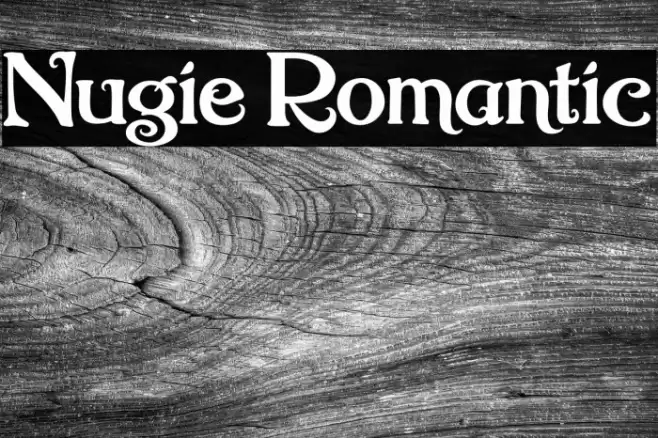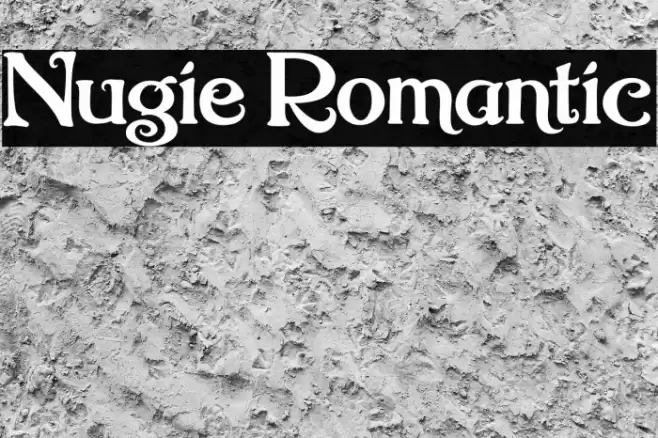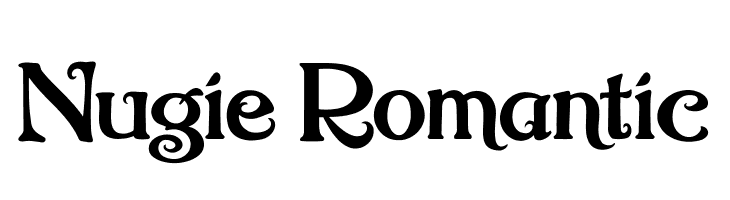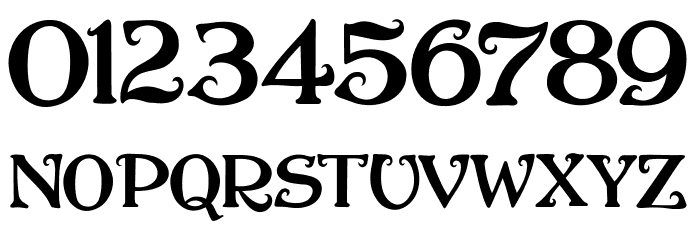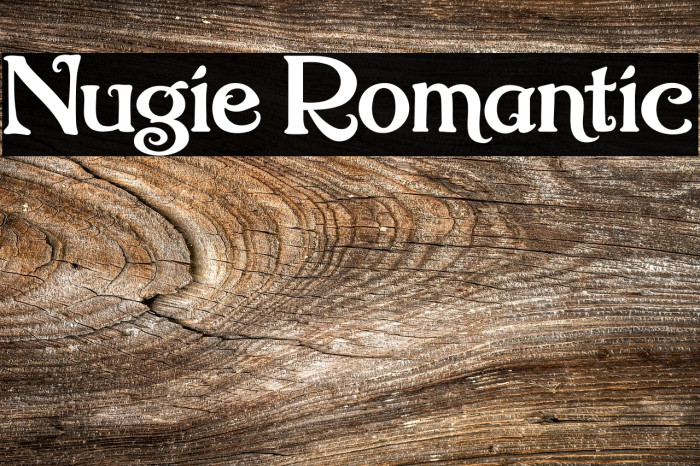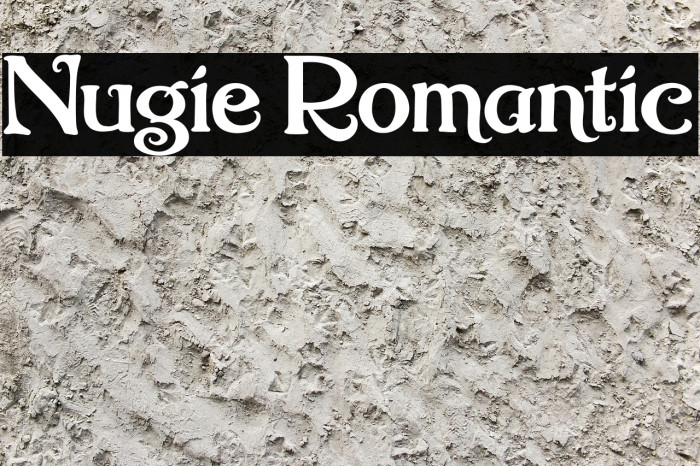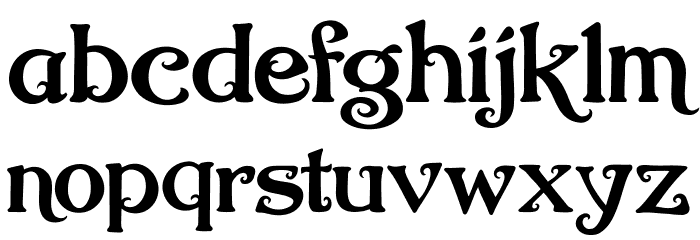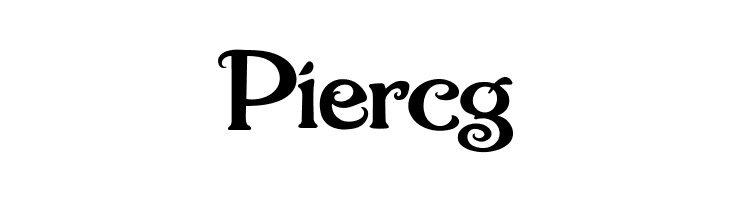
Nugie Romantic Font
Nugie Romantic Description
This font features a whimsical and romantic style, characterized by its flowing curves and playful serifs. The uppercase letters exhibit a bold presence with unique flourishes, while the lowercase letters maintain a consistent, yet slightly more delicate appearance. The numerals are distinct and maintain the same playful characteristics, making them easily recognizable. Special characters are designed to complement the overall aesthetic, adding to the font's charm. The font's design is both artistic and functional, making it suitable for a variety of creative projects.
A whimsical and romantic font with playful serifs and flowing curves from Uncategorized fonts.
- Proposed Projects: Ideal for wedding invitations, greeting cards, branding projects, and decorative posters.
- Overall Style: Romantic, Decorative
- Use Case: Headlines, Logos, Invitations